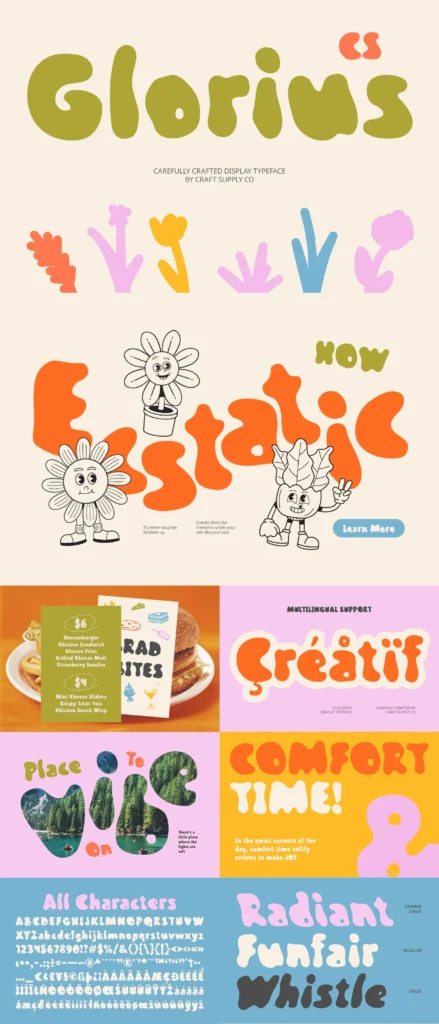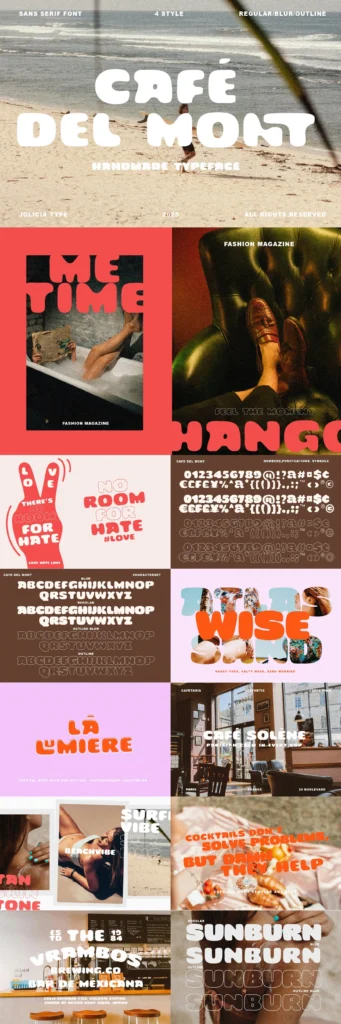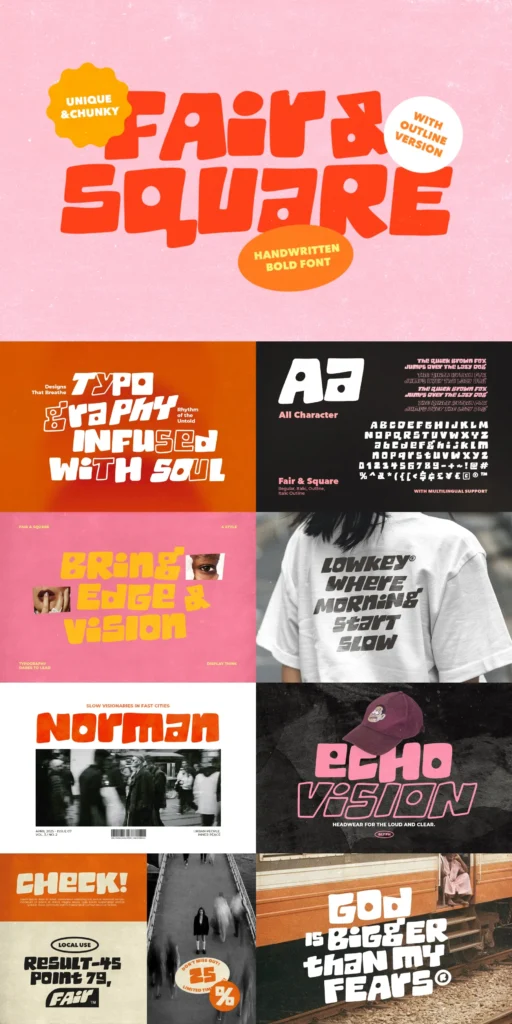
The Trendy Summer Font Bundle
Add some serious style to your toolkit with
The Trendy Summer Font Bundle
, a vibrant collection of fonts and design goodies built for fun, eye-catching work.
Inside you’ll find a mix of bold display fonts, quirky hand-drawn typefaces and even a few creative extras. Everything is curated to help you create your best work all summer long.
25 typefaces with loads of personality
Handwritten styles, uniques sans serifs, and scripts
Bonus design assets like illustrations, gradients, and more
Perfect for social content, merch, posters, packaging, and brand refreshes